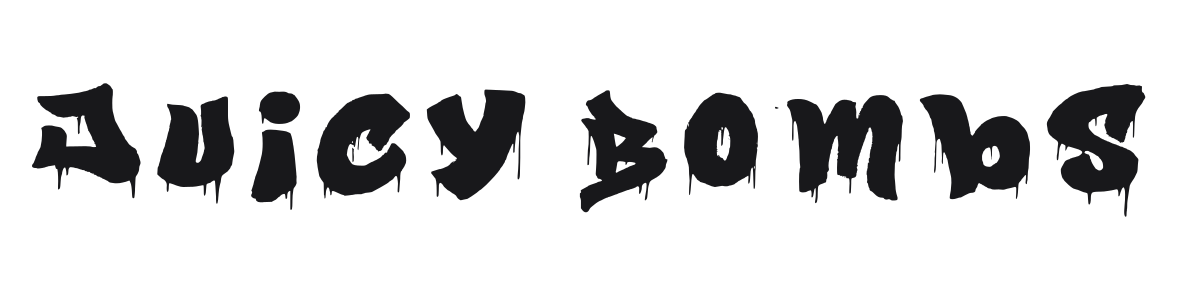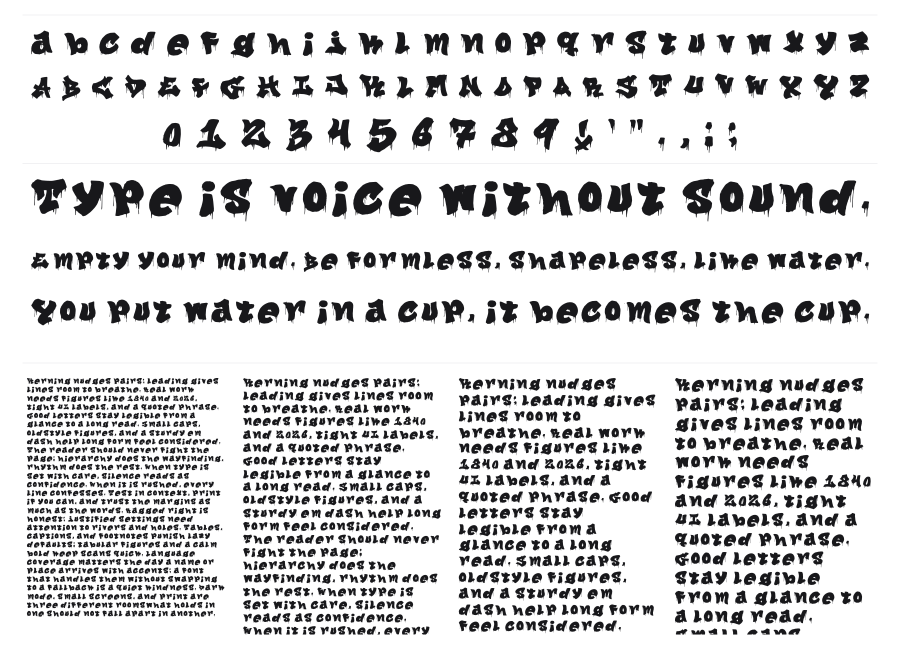
Juicy Bombs
by Mikkel Strøyer
Juicy Bombs is a bold dripping-effect display font that sits somewhere between horror comic and novelty food branding. The thick, irregular strokes look like they are actively melting, with drips hanging from nearly every character. It brings energy to posters, packaging, and any context that benefits from a messy, expressive edge.